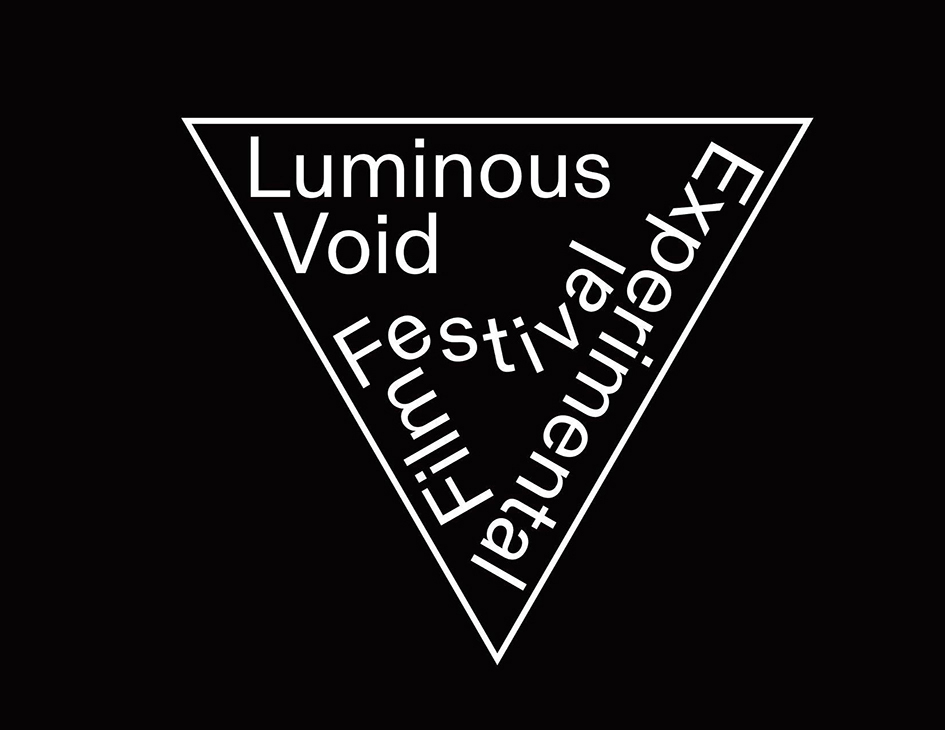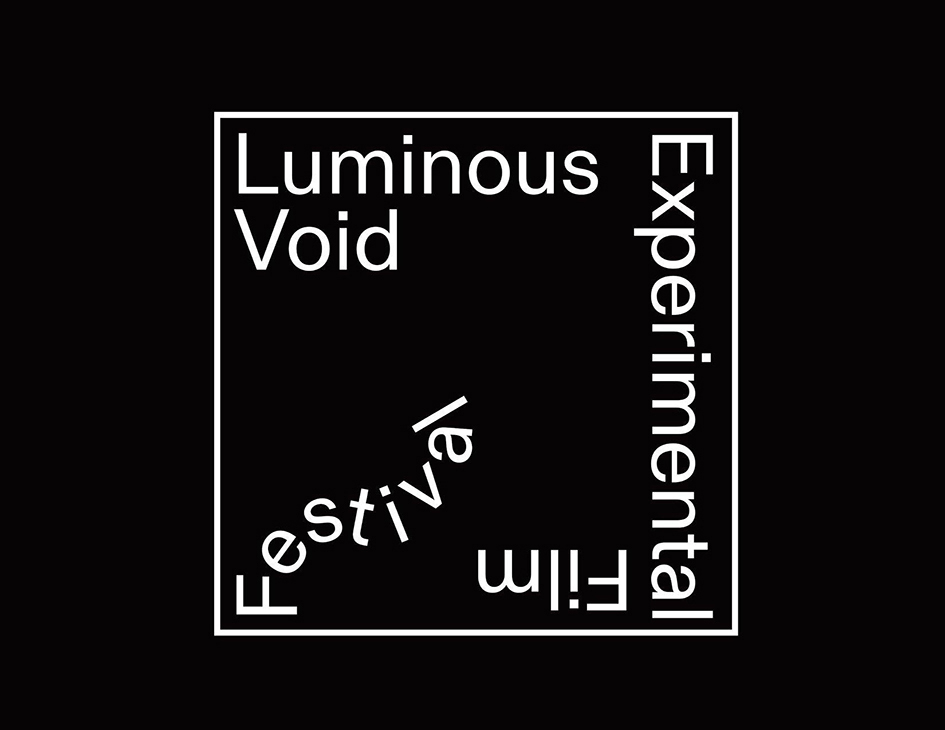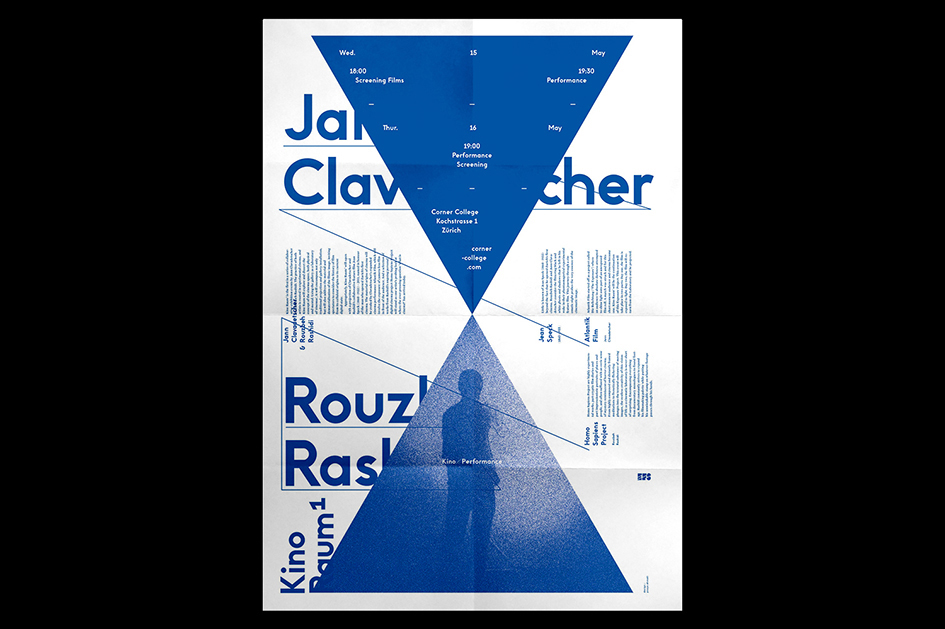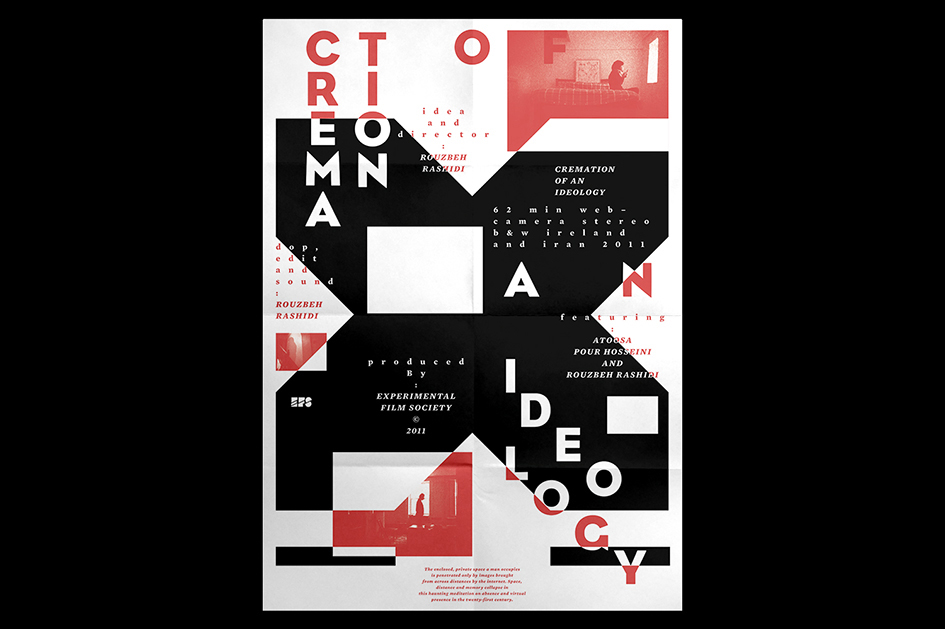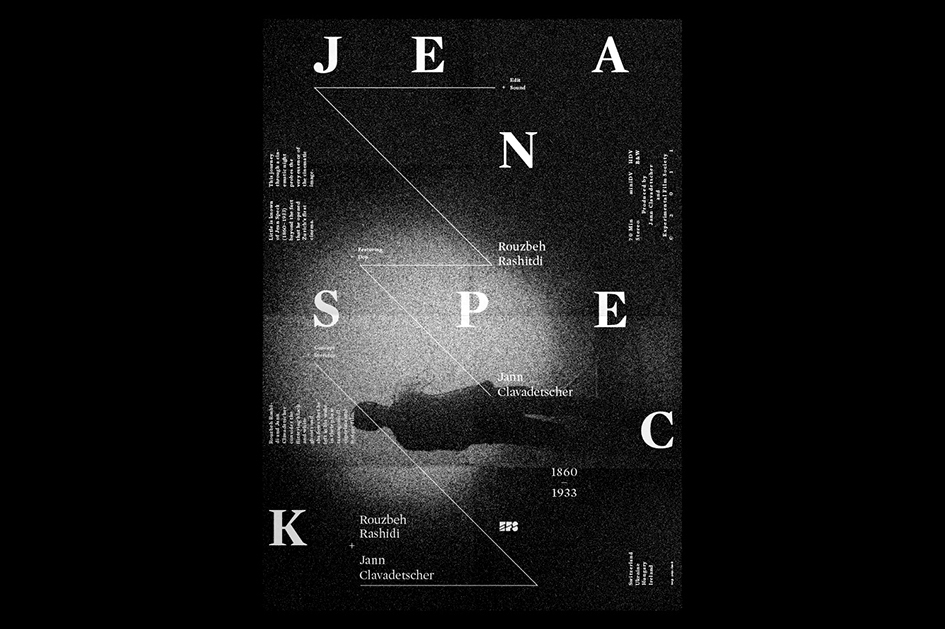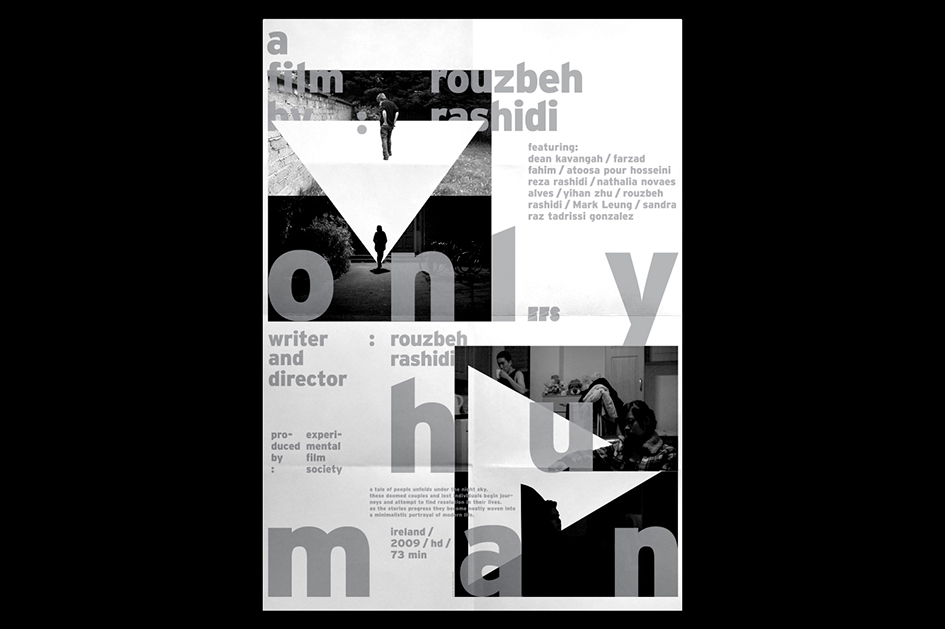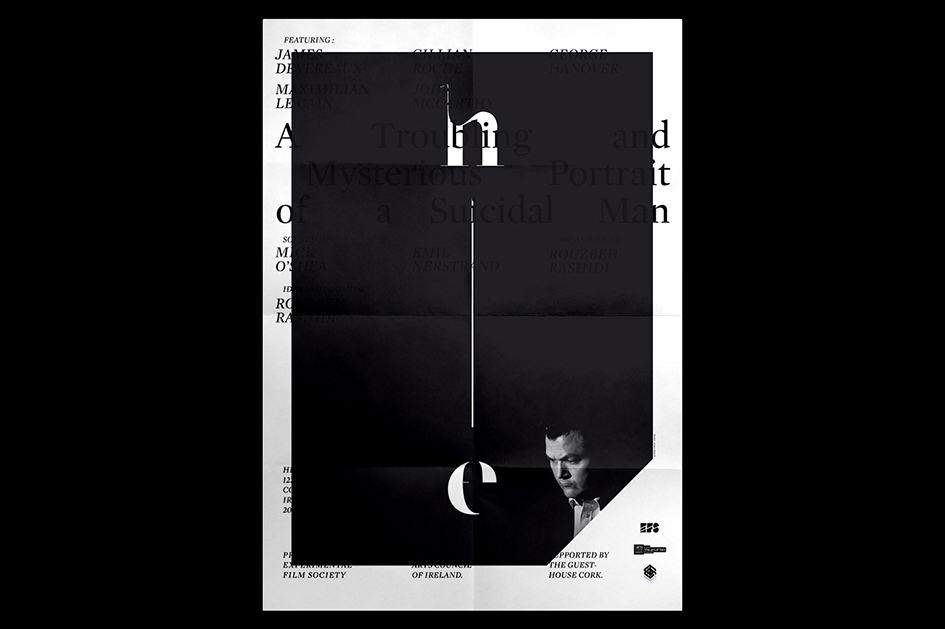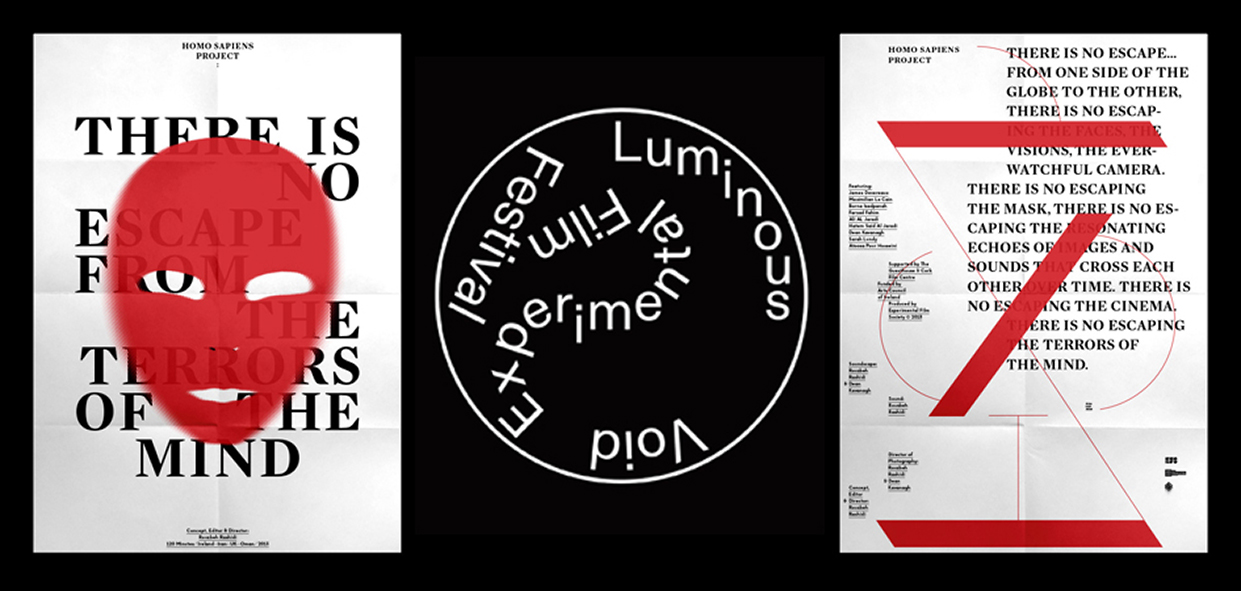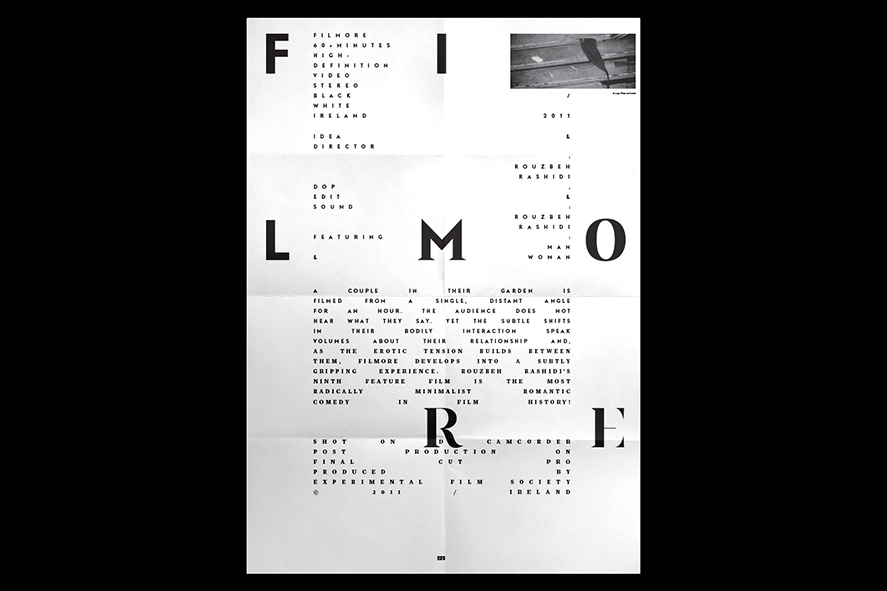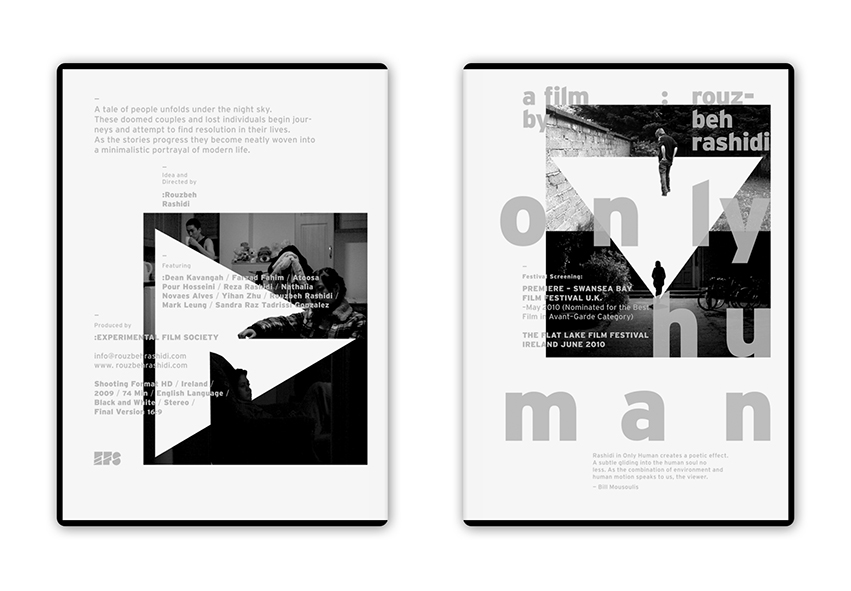
Pouya Ahmadi X Experimental Film Society: when brilliant type meets the cinematic avant-garde
Experimental Film Society is pleased to announce the first edition of the Luminous Void Experimental Film Festival in partnership with The New Theatre this November.
This two-day event, taking place in Dublin’s Temple Bar, will showcase recent work by filmmakers associated with Experimental Film Society. Experimental or not, the emerging graphic designer Pouya Ahmadi created LVMFF's visual identity.
"The logo attempts at visualizing the experimental nature of the festival by breaking away from notions of structuralism. The typographic arrangement of the information speaks to the formally fluid work featured throughout the festival" notes Ahmadi who was recently awarded a Golden Bee on the logo he created with Dinamo Standard typeface by the Swiss type foundry Dinamo Typefaces.
Hence this is not the first collaboration of Ahmadi, a graphic designer, researcher, and educator at the University of Illinois at Chicago with Experimental Film Society.
Experimental Film Society (EFS) is an Irish company dedicated to the production and distribution of experimental cinema that grew out of the Experimental Film Society collective. It was founded and is run by Rouzbeh Rashidi. The independent, not-for-profit entity specialising in avant-garde, independent and no/low budget filmmaking.
Its aim is to produce and promote films by its members. EFS unites works by a dozen filmmakers scattered across the globe, whose films are distinguished by an uncompromising, no-budget devotion to personal, experimental cinema. EFS is responsible for rescuing and preserving many of its members' films, which otherwise might have been lost forever.
"This series of works includes a number of promotional posters for feature films directed by EFS filmmakers, mainly Rouzbeh Rashidi, who is the founder of Experimental Film Society in Dublin/Ireland" notes Ahmadi.
"Rashidi's movies are characterized by their bold, deconstructive, and poetic imagery. The posters attempt to express these qualities as well as their highly experimental/personal narrative structure by making use of typographic elements and the interplays of their snapshots. Hence, the posters become the representation of each movie's concept, while maintaining their design language as a part of the series".